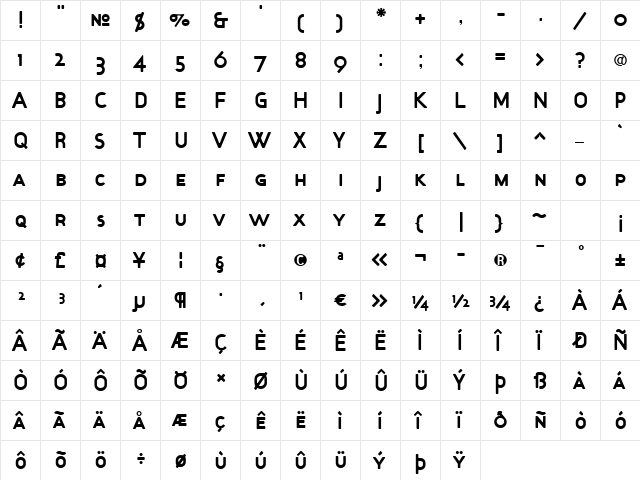
TargetSC Regular Font Preview
TargetSC Regular
TargetSC Regular Font Details
Design Context for TargetSC Typeface
TargetSC takes a measured approach to typography — its balanced proportions and neutral character make it a reliable workhorse for both digital and print work.